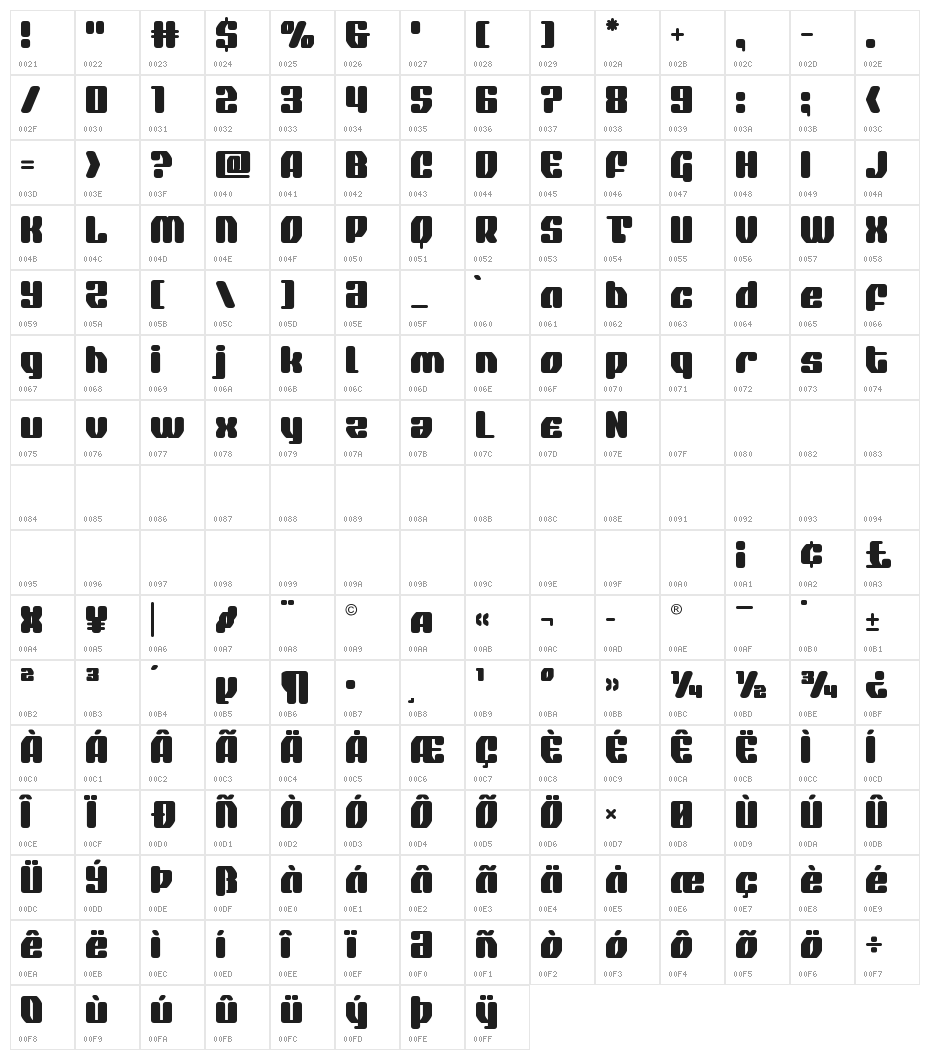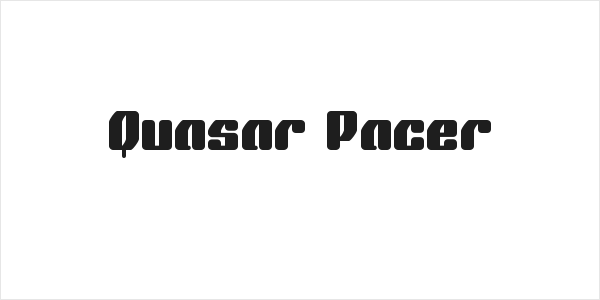
Quasar Pacer Font
Quasar Pacer Description
This font features a bold and robust design with thick, block-like characters that convey a sense of strength and modernity. The letters are uniformly wide, with a slight geometric influence that adds a contemporary edge. The uppercase and lowercase letters maintain a consistent style, with rounded edges that soften the overall look. The numerals are equally bold, ensuring readability and impact. Special characters are designed to match the boldness of the alphabet, making them suitable for attention-grabbing designs. The font's unique style makes it ideal for projects that require a strong visual presence.
| Proposed Projects | Ideal for branding, posters, headlines, and any design requiring a strong visual impact. |